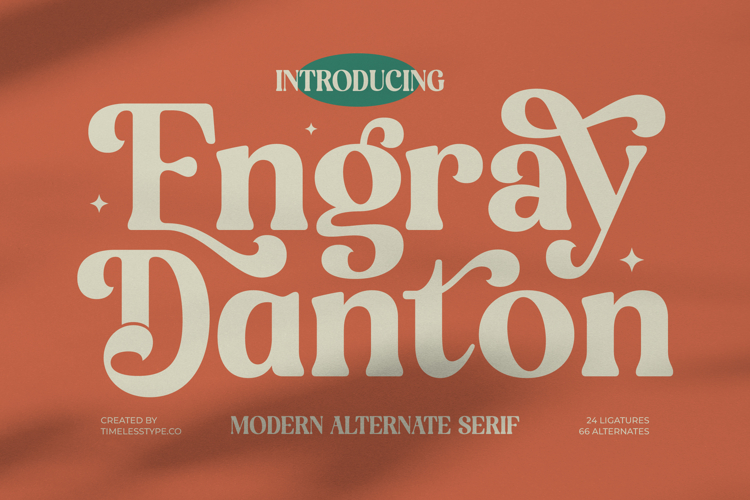
Engray Danton - Modern Alternate Serif Font
Unleash unparalleled elegance with Engray Danton - Modern Alternate Serif Font, a typeface meticulously crafted to captivate. This exquisite modern alternate serif blend of classic charm and contemporary flair brings a unique warmth and high-contrast personality to any design. Its graceful curves and refined serifs exude an air of approachable luxury, making every word a visual delight. Perfect for designers seeking to infuse projects with distinctive elegance and a touch of nostalgic sophistication.
Elevate your creative vision with the expansive capabilities of Engray Danton - Modern Alternate Serif Font. Boasting an impressive collection of 24 ligatures and 66 alternates, this font offers unparalleled creative freedom to sculpt truly original and personalized typography. Each character variation allows for seamless customization, ensuring your designs achieve a unique voice and maintain a polished, high-impact aesthetic across various applications, from headlines to logos.
Experience boundless design opportunities with truly global reach. With its extensive multilingual support, Engray Danton - Modern Alternate Serif Font adapts seamlessly across global markets, making it incredibly versatile for international projects. This comprehensive support ensures your brand message remains consistent and impactful, resonating powerfully with diverse audiences around the world, reinforcing your commitment to universal brand consistency and sophisticated communication.